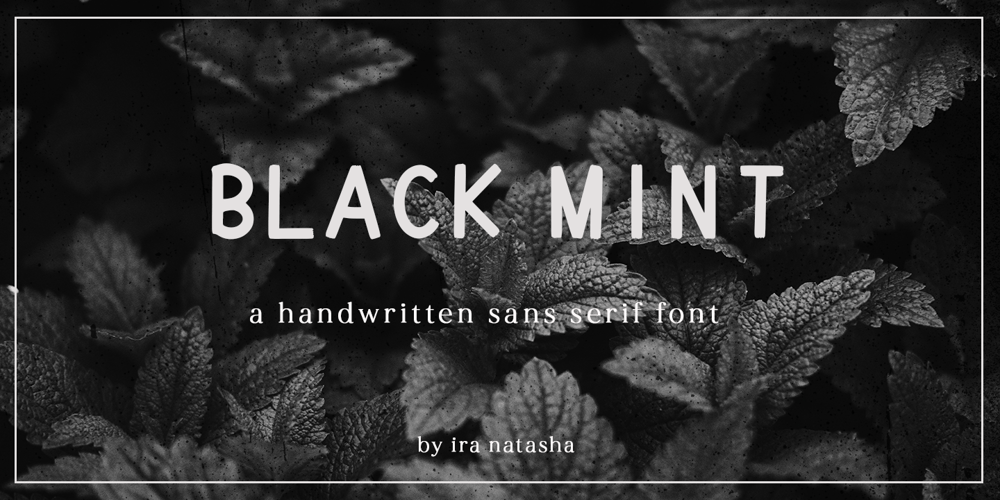
Black Mint Font Family was designed by Ira Natasha and published by Ira Natasha. Black Mint contains 1 styles and family package options. Black Mint is a bold handwritten sans serif font. A new fresh handmade font with smooth edges. This font is support multi language and available in OTF file. This font will perfect for many different project ex: quotes, logo, blog header, poster, branding, fashion, apparel, letter, invitation, stationery, etc….